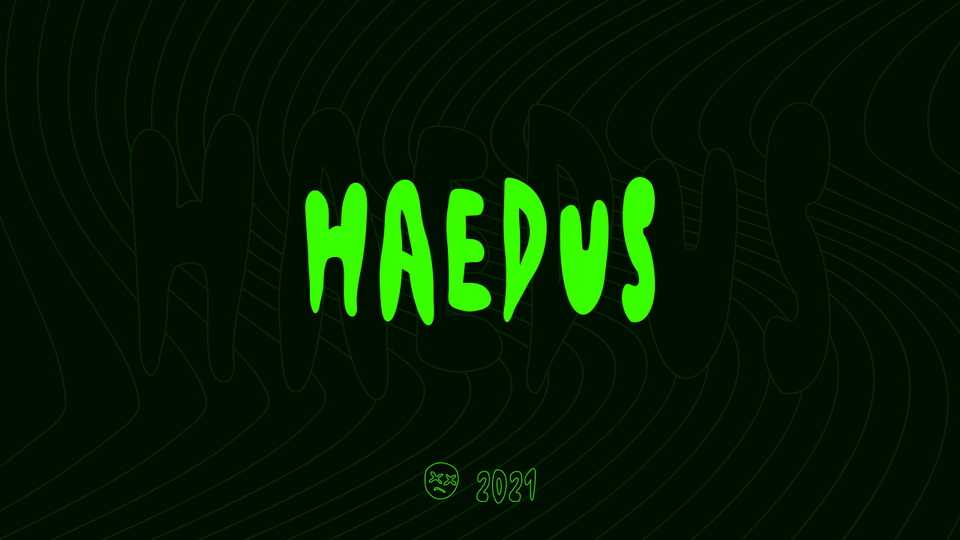
Download Haedus font, a spooky hand painted typeface to create a scary impression. Haedus font is very suitable for design needs with horror or Halloween themes.